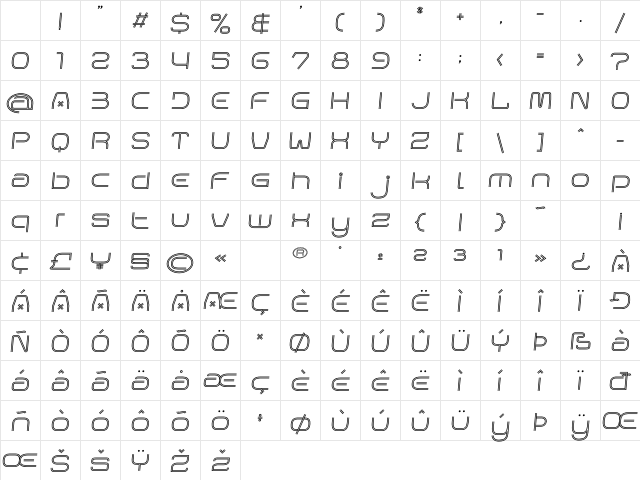
Complete Matrix Pulse Slant Regular glyph index. Displaying only characters natively supported by Matrix Pulse Slant Regular font.
Matrix Pulse Slant is a composed and adaptable typeface that performs quietly and consistently across a wide range of design contexts.
Pro Tip: Use Matrix Pulse Slant in both headline and body roles to test its range before committing to a single application.